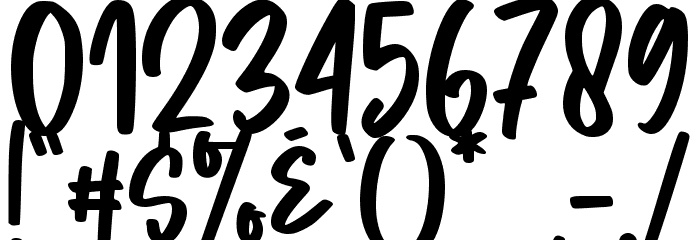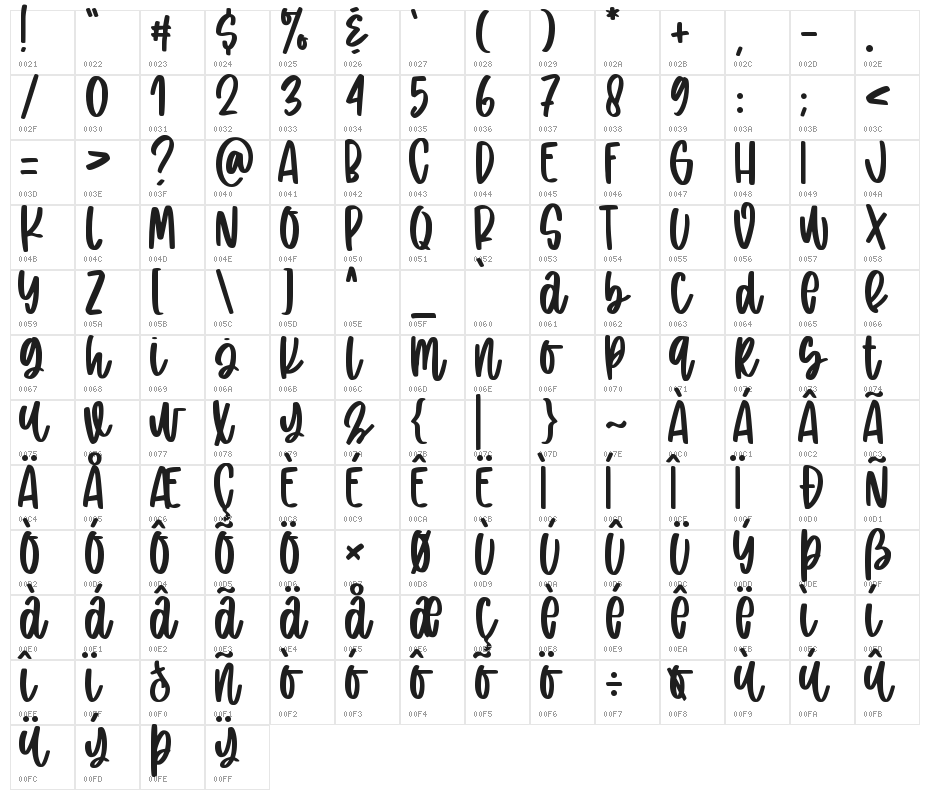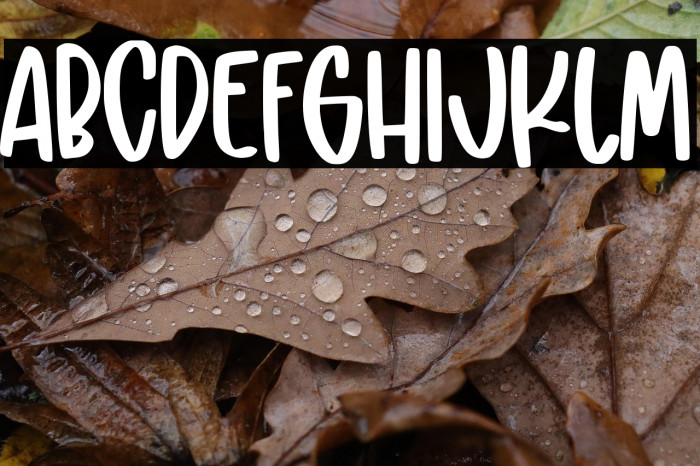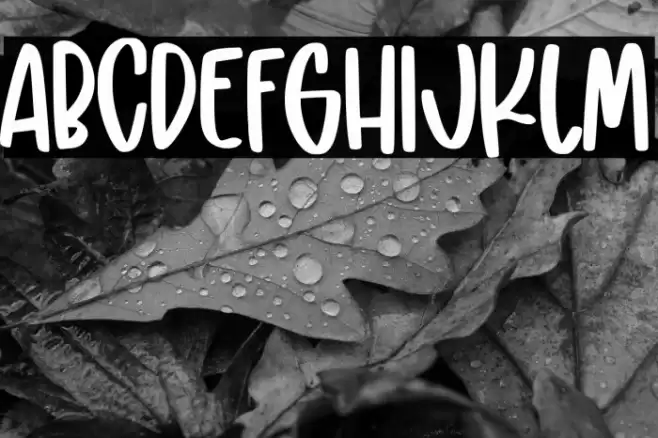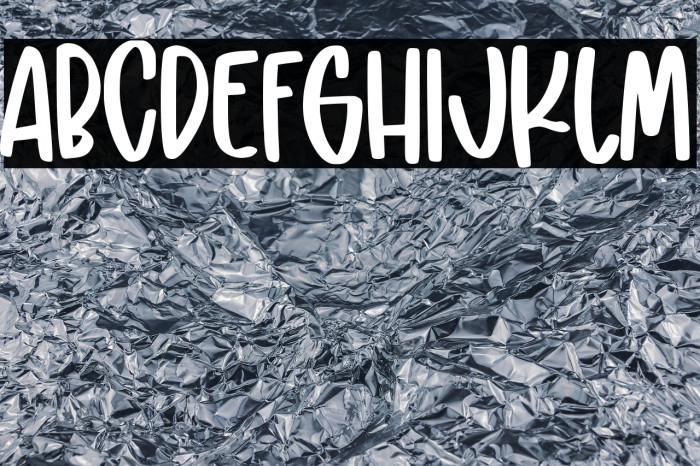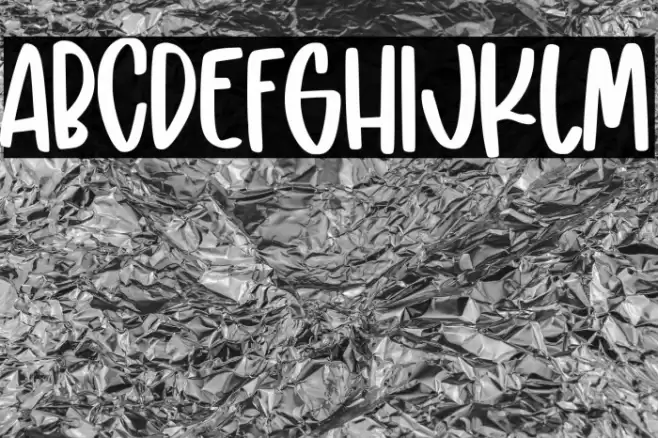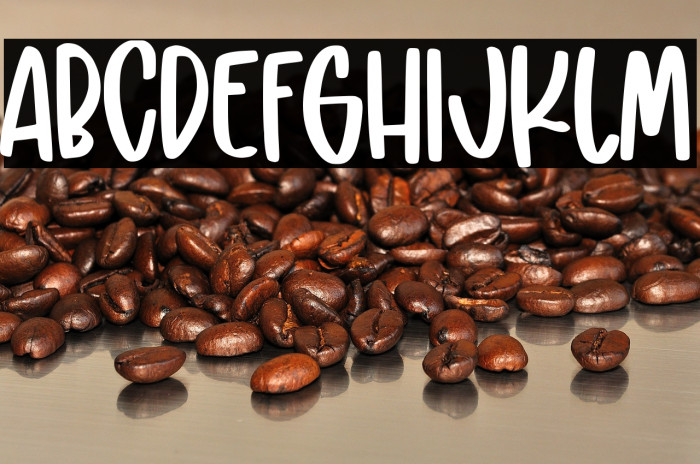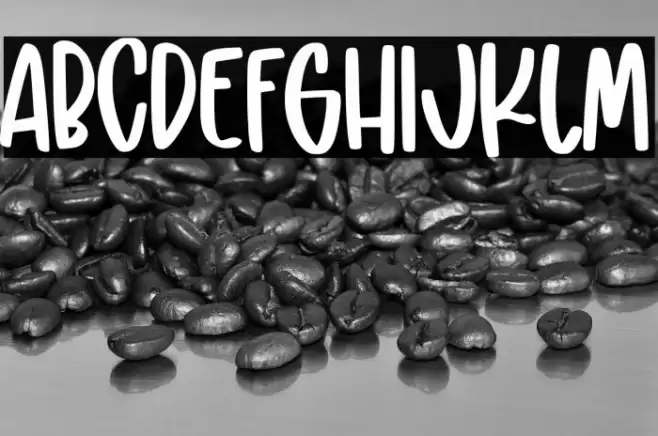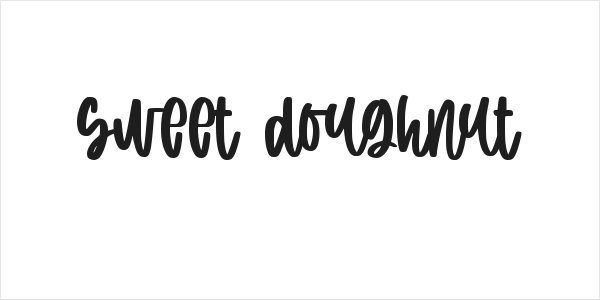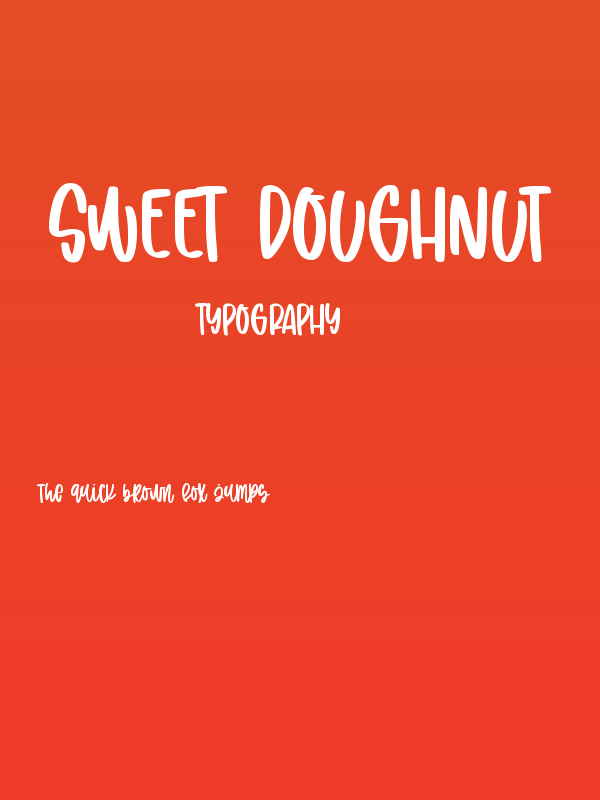
sweet doughnut Font
sweet doughnut Description
This playful and energetic font features bold, rounded characters with a hand-drawn appearance. The letters are slightly irregular, giving a casual and friendly vibe. The uppercase and lowercase letters maintain a consistent style, with smooth curves and a lively flow. The numerals and special characters are equally dynamic, complementing the overall aesthetic. This font's unique personality makes it stand out, perfect for projects that require a touch of whimsy and fun. Its bold strokes and informal style make it ideal for creative and informal applications.
Overall StylePlayful
Proposed ProjectsIdeal for greeting cards, children's books, playful branding, and social media graphics.